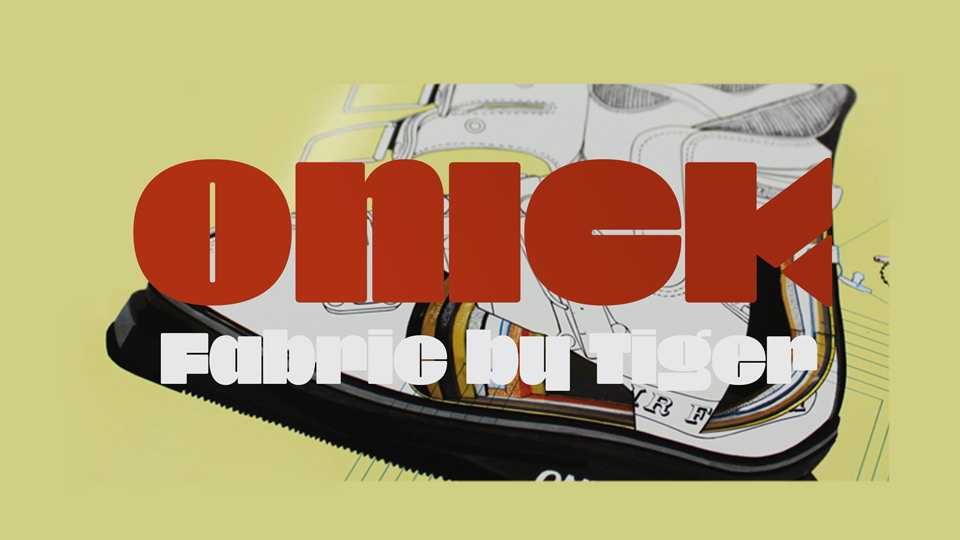
Download Onick font, a heavy and contrast display font with own unique character. Great for attractive headlines, posters, magazines, covers and other creative typographic projects.
Designer: Dharma Type